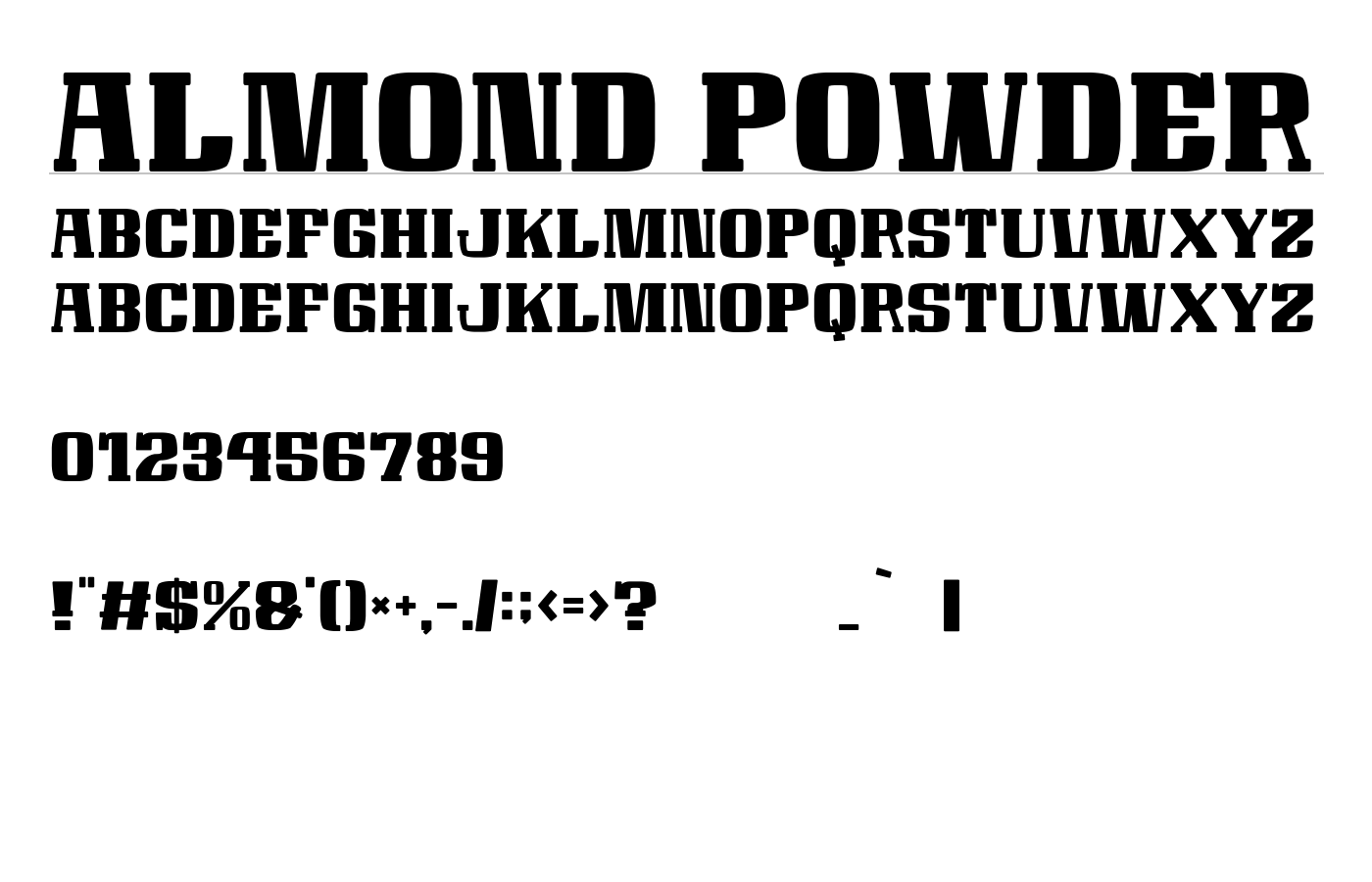
Almond Powder is a bold, condensed slab serif font with strong, sturdy letterforms and pronounced, blocky serifs that give it a robust, western-inspired character. Its high stroke contrast and squared shapes lend it a vintage yet confident feel, making it ideal for impactful headlines, logos, and branding that require a rugged, classic touch. This font works well in designs needing a bold statement with a nostalgic, yet authoritative vibe.
Almond Powder Font
About Almond Powder Font